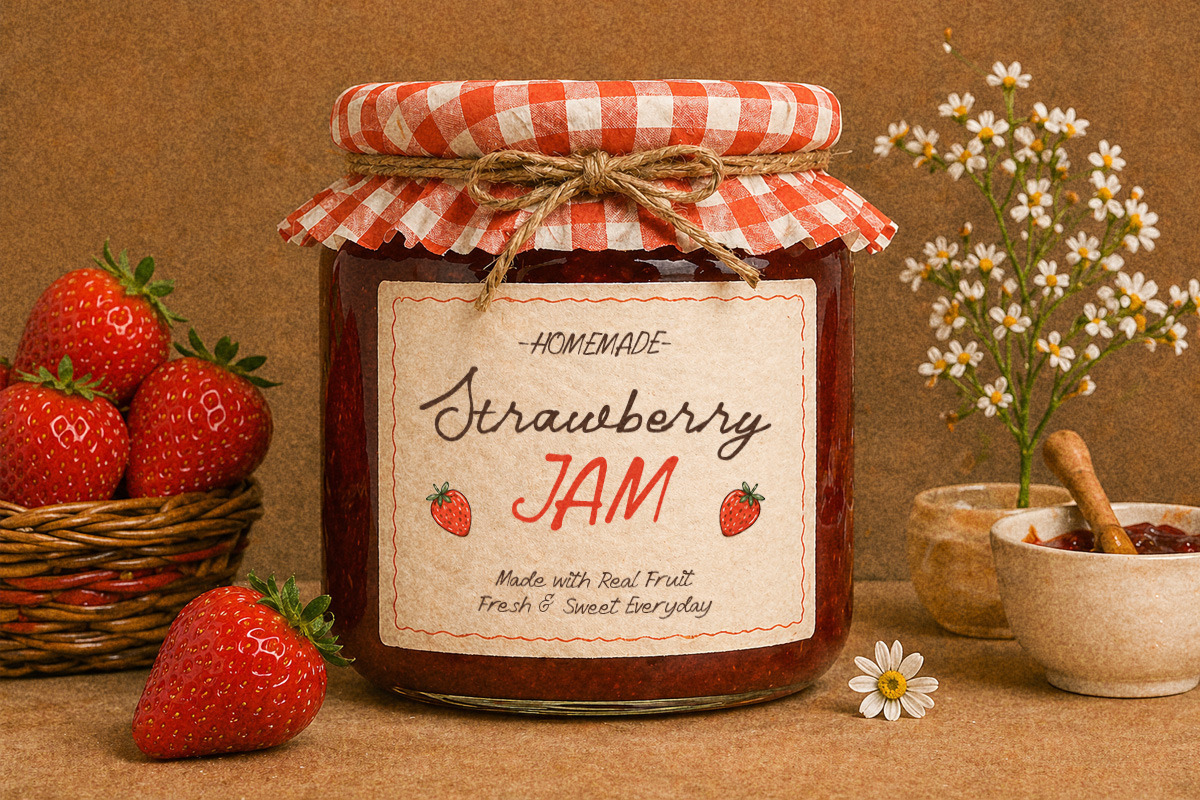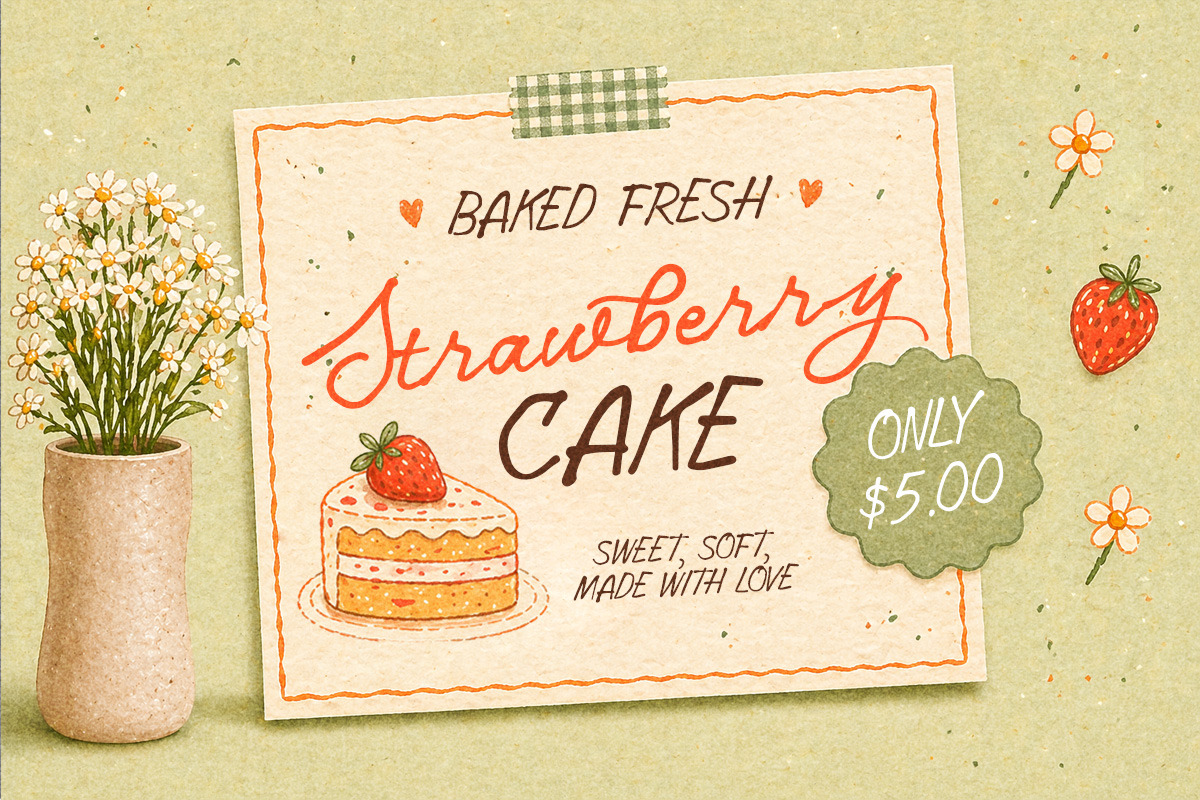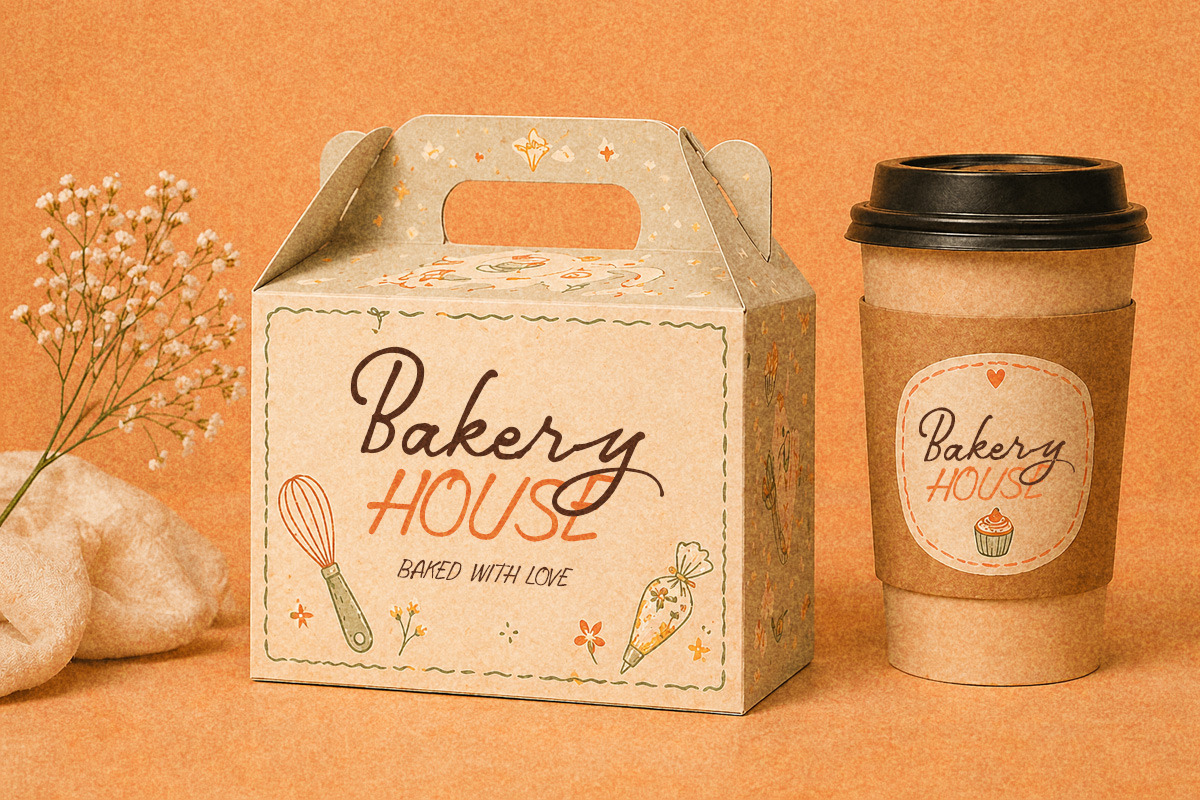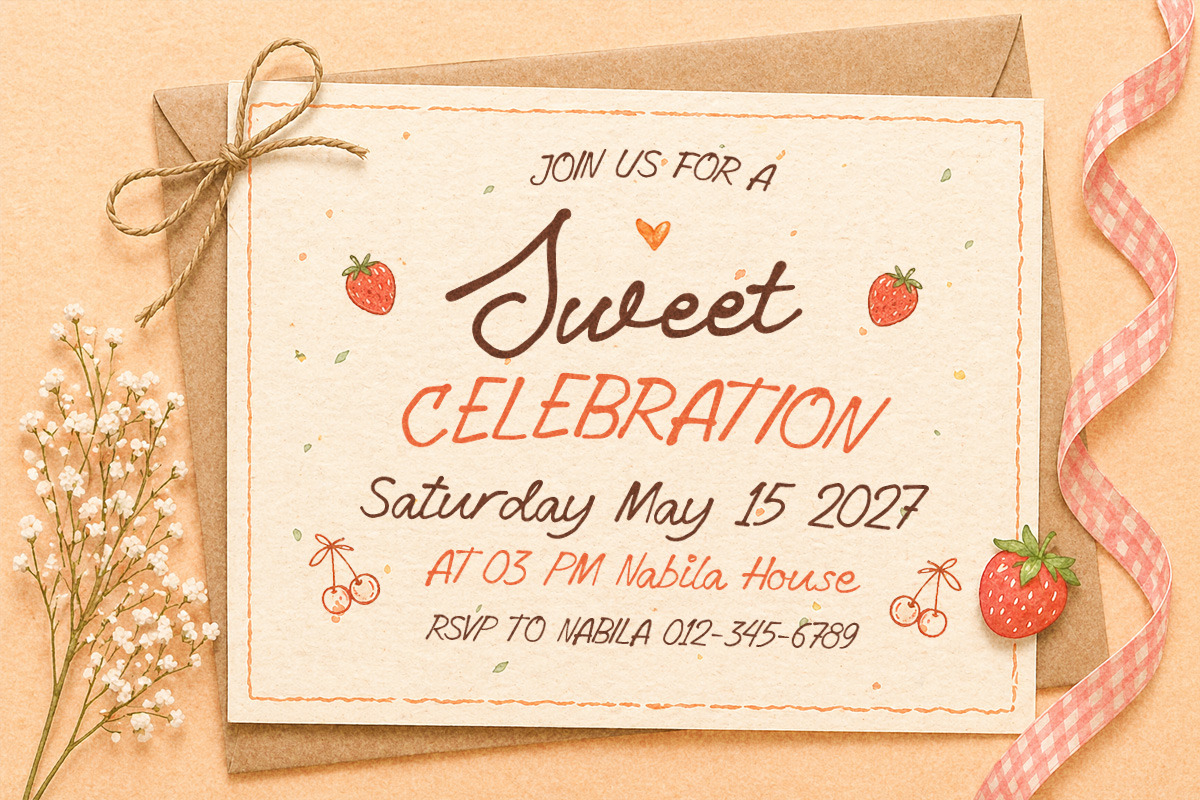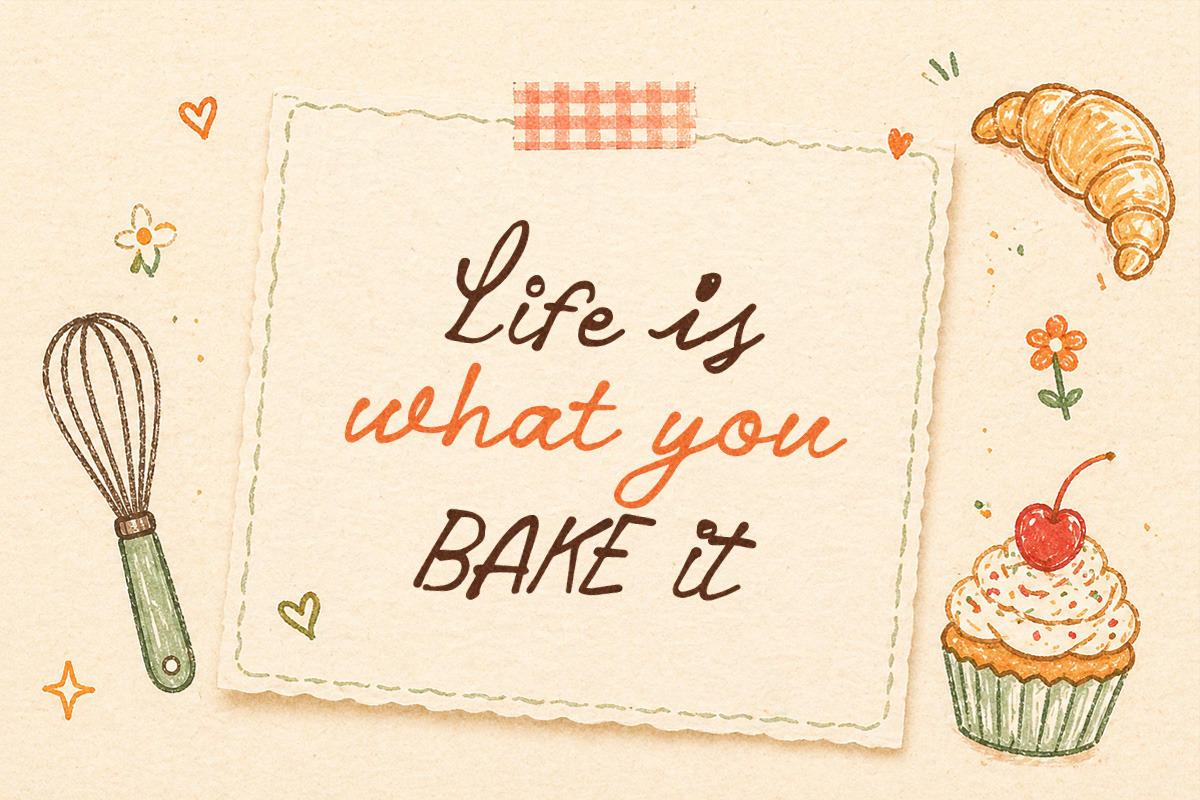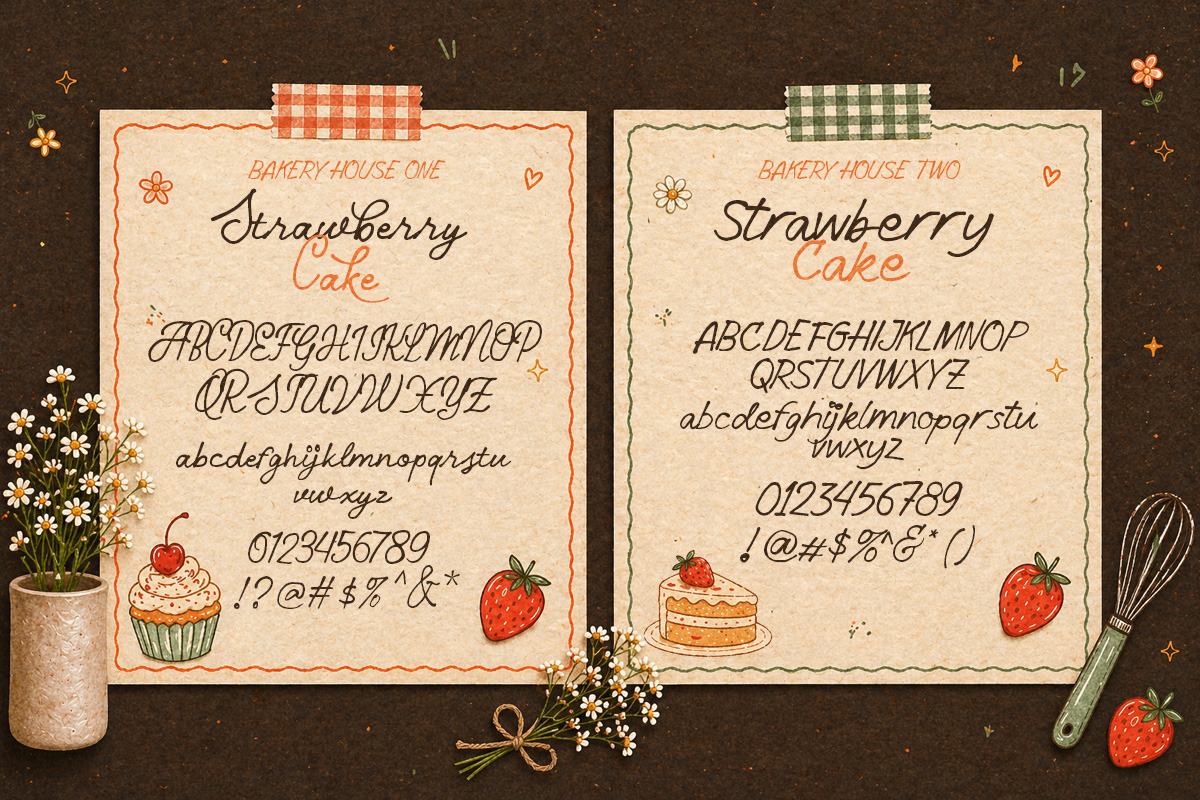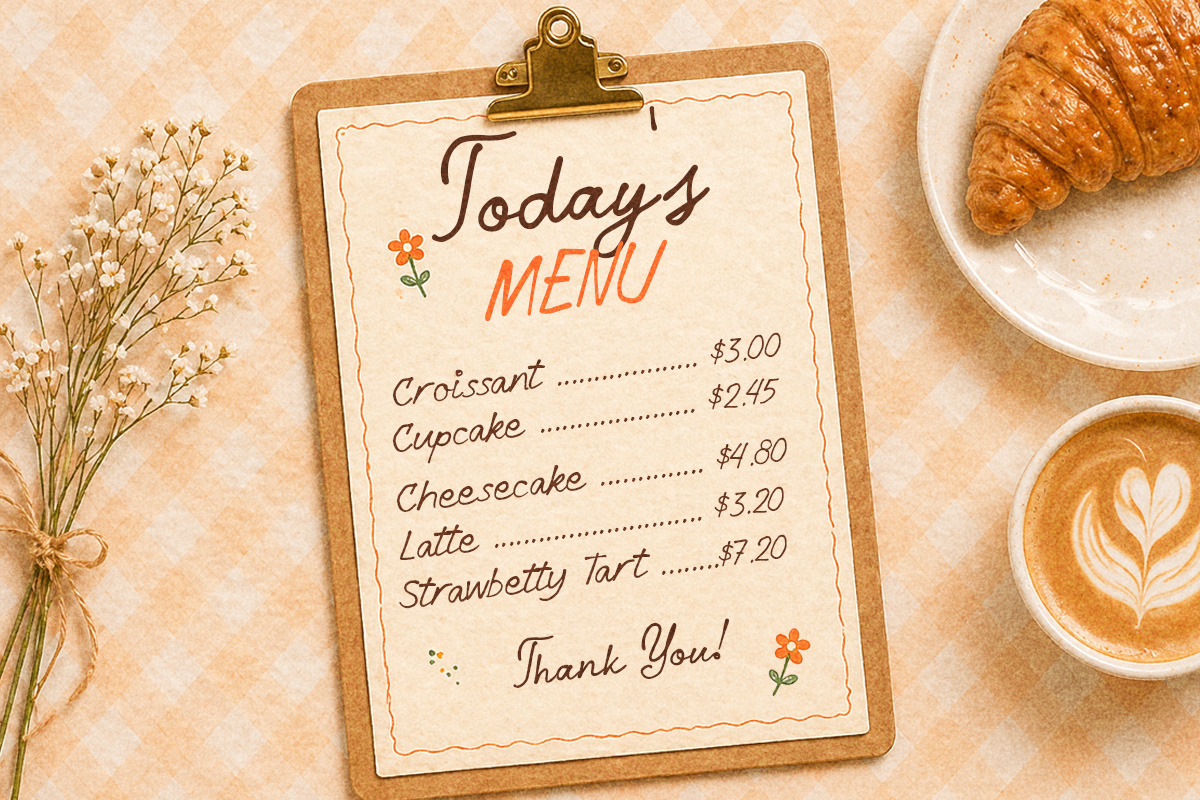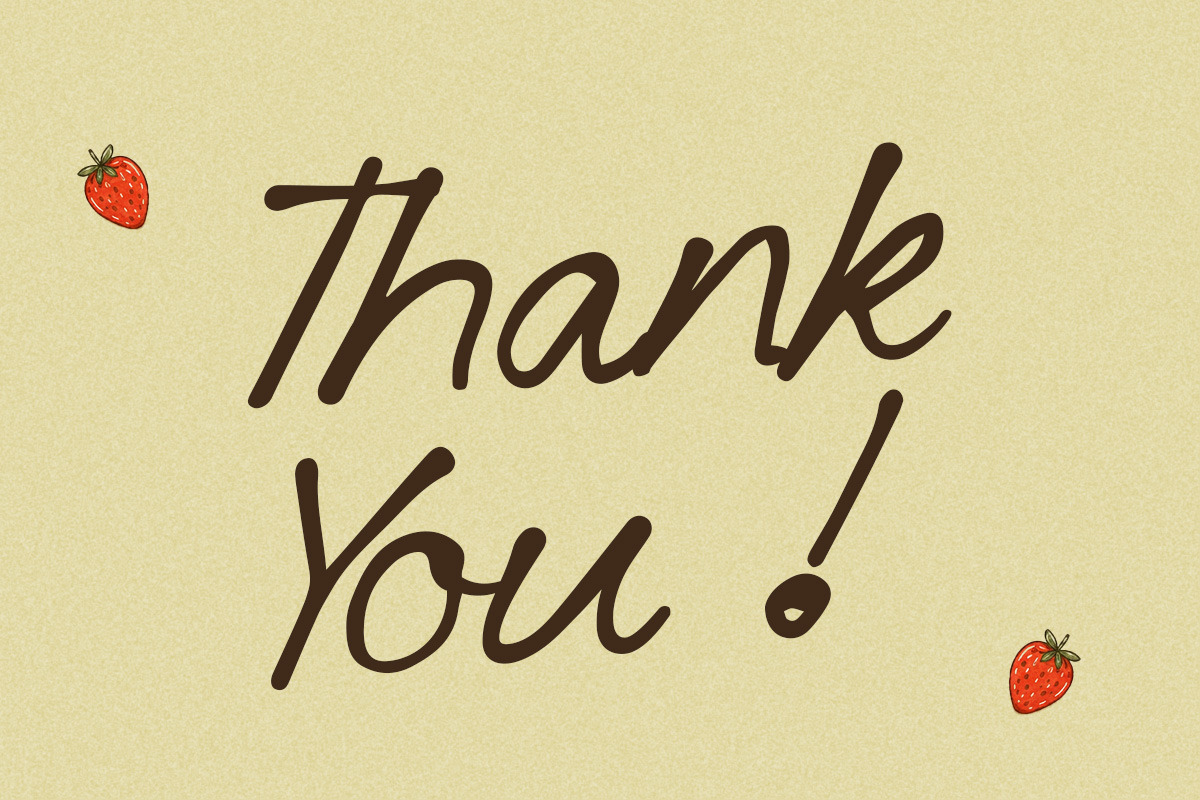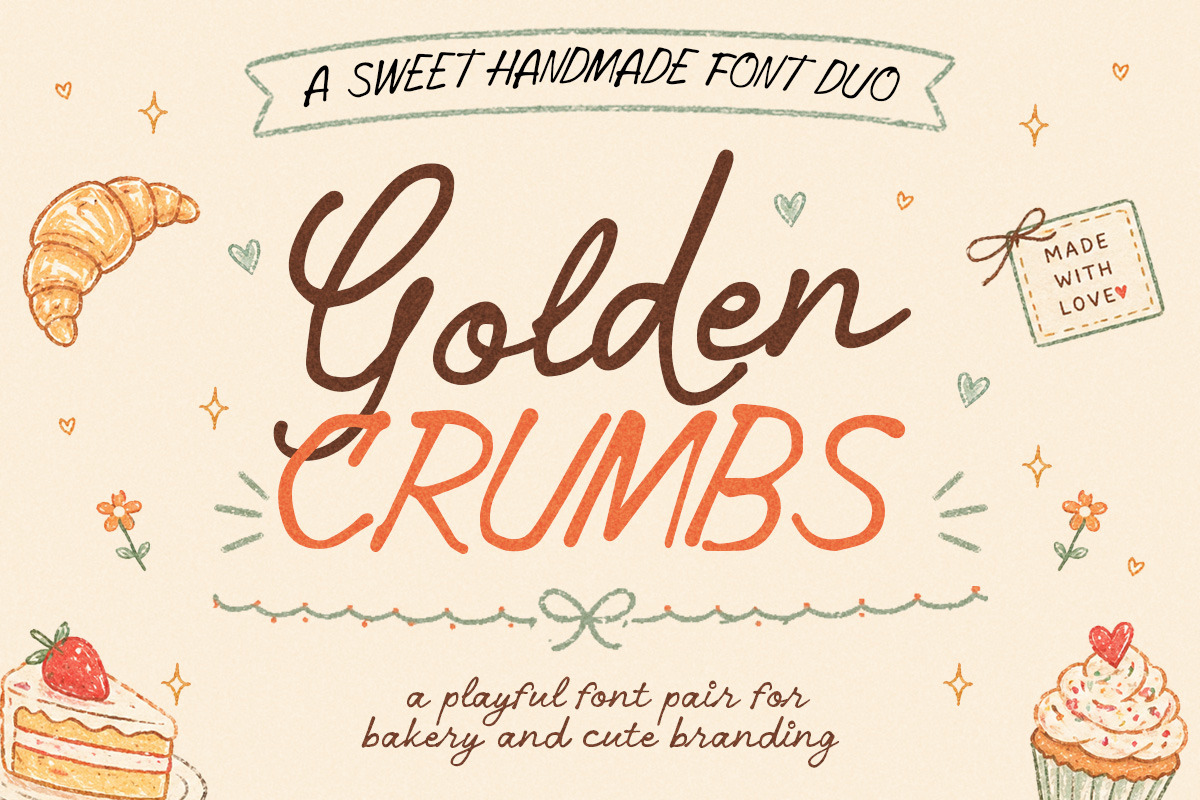
Golden Crumbs Handwriting Font Duo
Golden Crumbs comes in warm and delightful, mixing a soft handwritten script with a playful sans that feels like fresh treats straight out of the oven. It carries a cozy, cute vibe with a hint of vintage charm, making it just right for bakery logos, packaging, menus, and branding that want to feel friendly, tasty, and full of joy. Lighthearted and easy to use, this duo sprinkles a bit of happiness into every design.
Uppercase & lowercase
Numbers and punctuation
Alternates & Ligatures